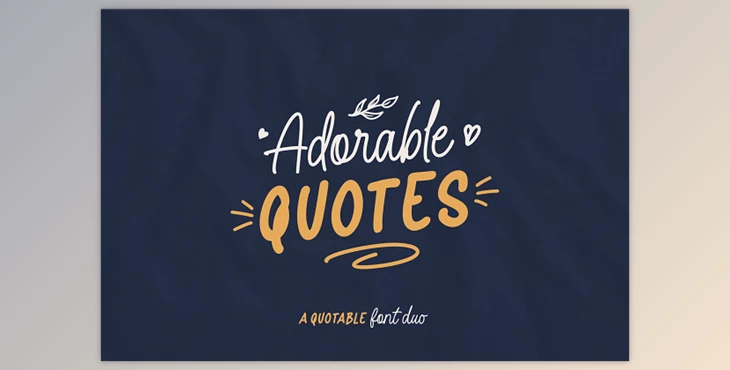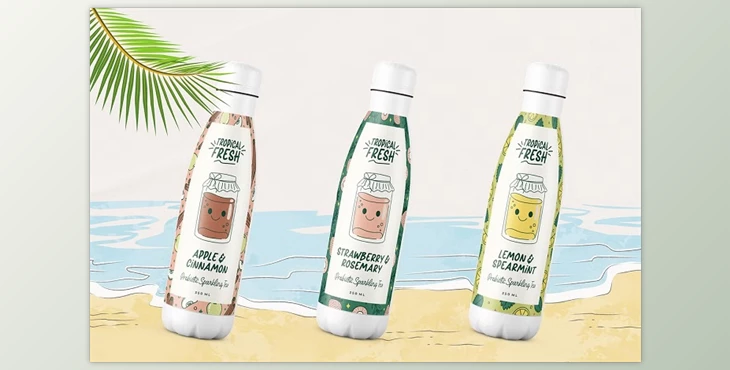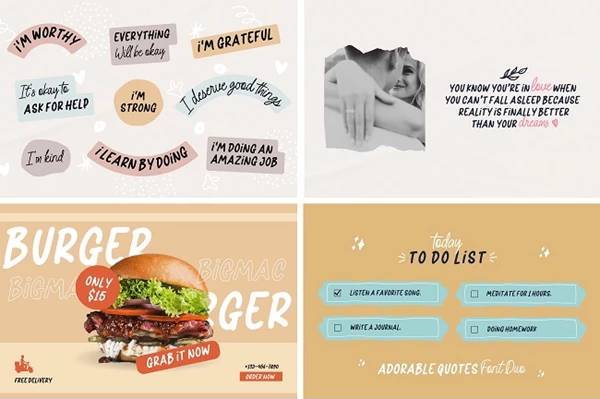
The Adorable Quotes Font Duo is a sophisticated pairing of fonts designed to enhance various design projects, from quote design to branding and product packaging.
Featuring a charming alternate script version, this versatile font duo is ideal for creative professionals and enthusiasts. It includes a comprehensive set of uppercase and lowercase glyphs, numbers, symbols, punctuation, multilingual support, and special features like alternates, ligatures, and washes.
These attributes enable users to create captivating visual experiences and leave a lasting impact. Accessing swashes is easy by typing specific sequences, and ligatures are automatically applied in OpenType-capable software.